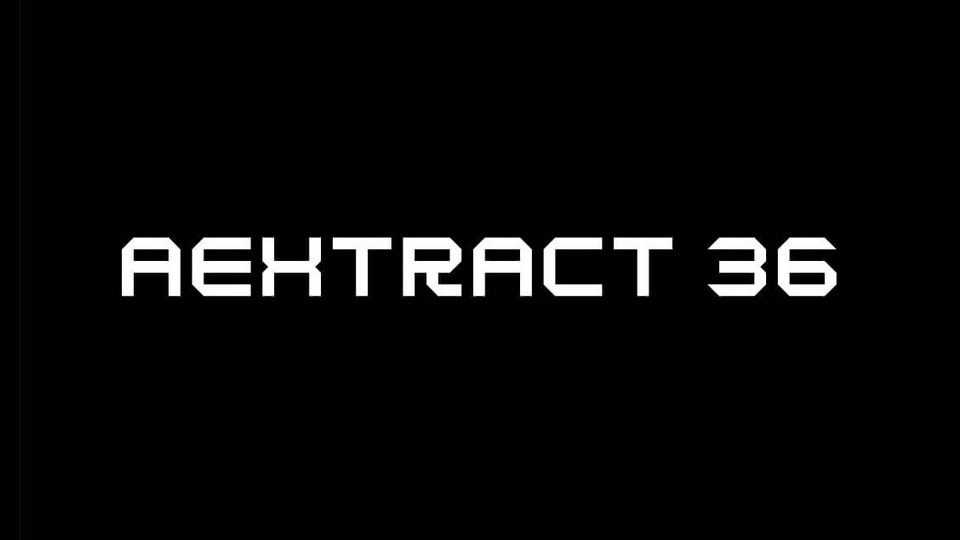
Download Aextract 36 font, a display typeface which comes out of the 36 Days of Type challenge. The thing is the challenge was to design all the 36 characters strictly from one grid which is a grid made up of lines & diagonals no exceptions to any characters.
Designer: Aex Designs